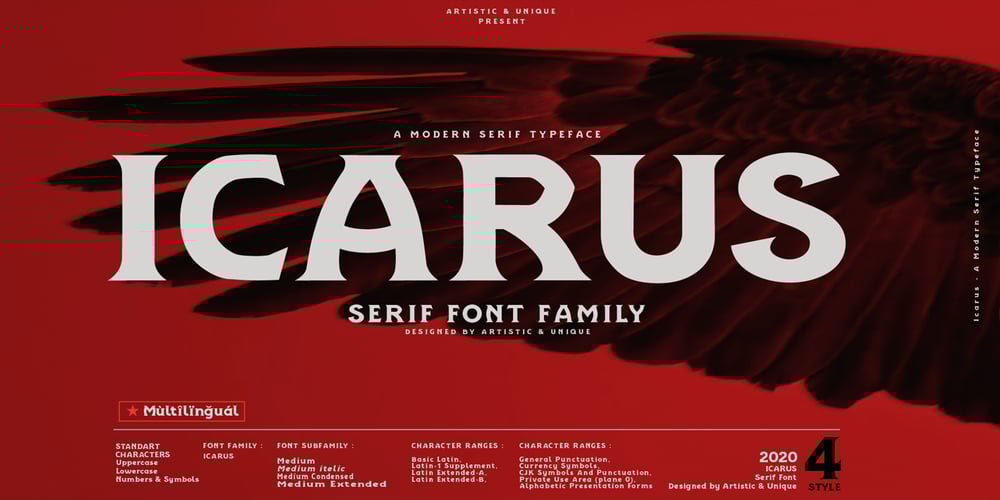
Icarus
Icarus font
Icarus Font Family was designed by Osman Taner Kucukgenc and published by Artisticandunique. Icarus contains 4 styles and family package options. Icarus – Serif Font Family – Multilingual – 4 StyleWith its modern vintage look, Icarus font offers a wide variety of styles to help you discover the best mood for your projects, from body text to large titles, classic styles to modern and bold styles.It is very suitable for books and magazines, editorials, titles, websites, logos, branding, advertising and more.With this font you can create your unique designs.If you have a question, please contact me.Have a good time.